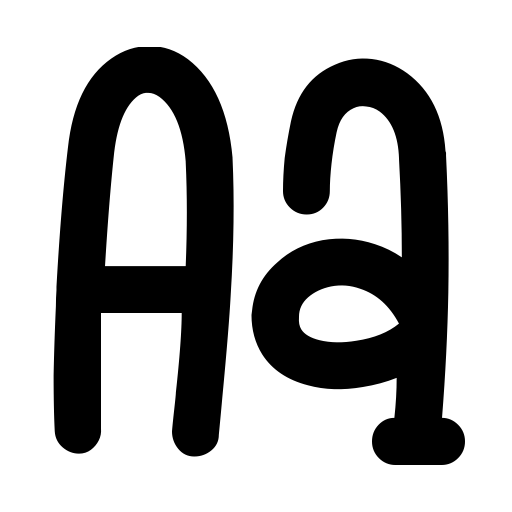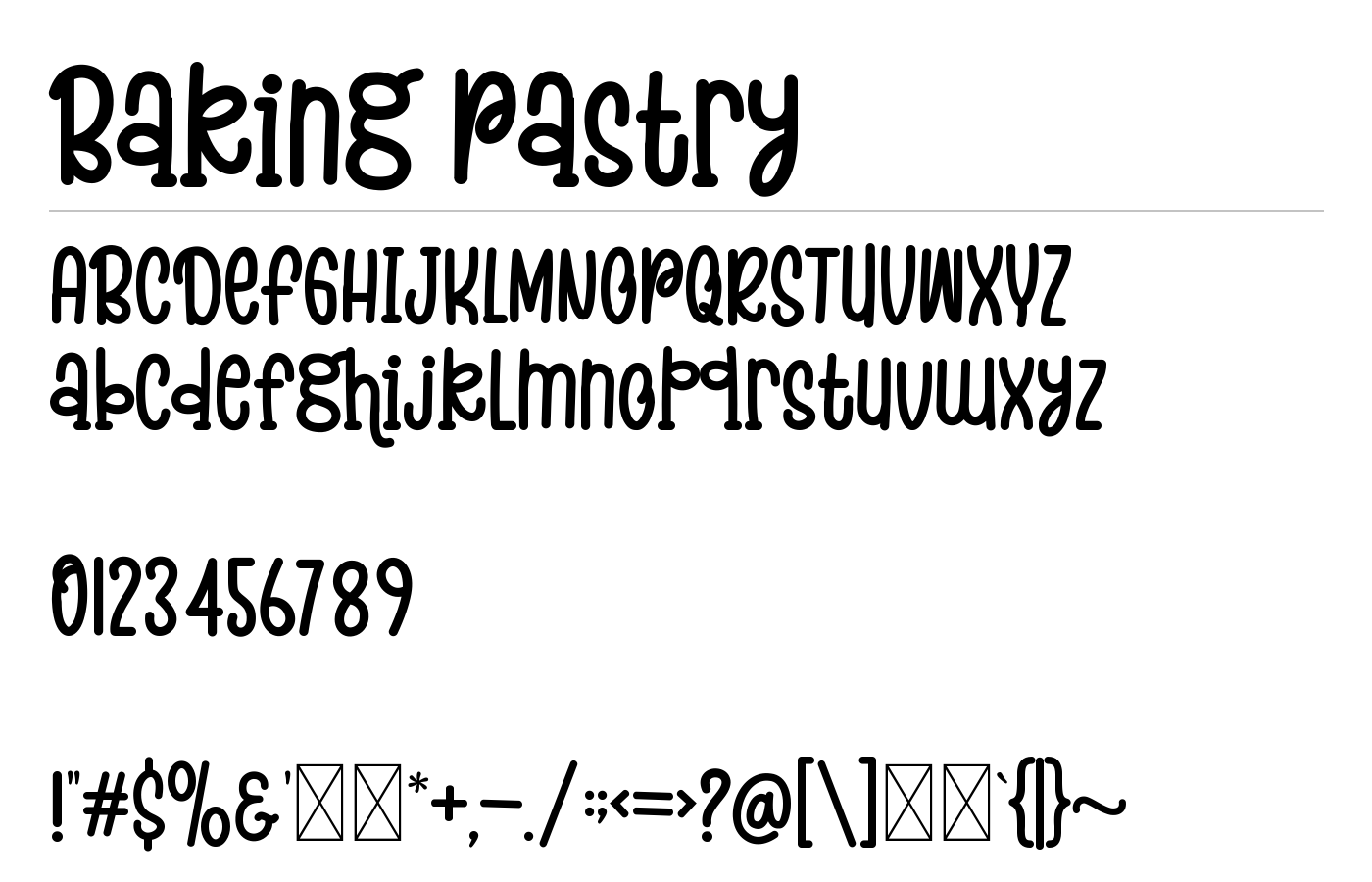
Baking Pastry is a playful and whimsical sans serif font featuring rounded, slightly irregular letterforms with quirky, decorative terminals that add a handcrafted feel. Its upright, casual style and consistent medium weight make it ideal for fun, informal branding, packaging, and creative headlines where a friendly and approachable personality is desired. Perfect for projects that want to convey warmth and charm, this font works well in children’s books, bakeries, and lifestyle brands looking for a unique, cheerful look.
Baking Pastry Font
About Baking Pastry Font
| Font family | Baking Pastry Font |
| Designer | Burhan Afif |